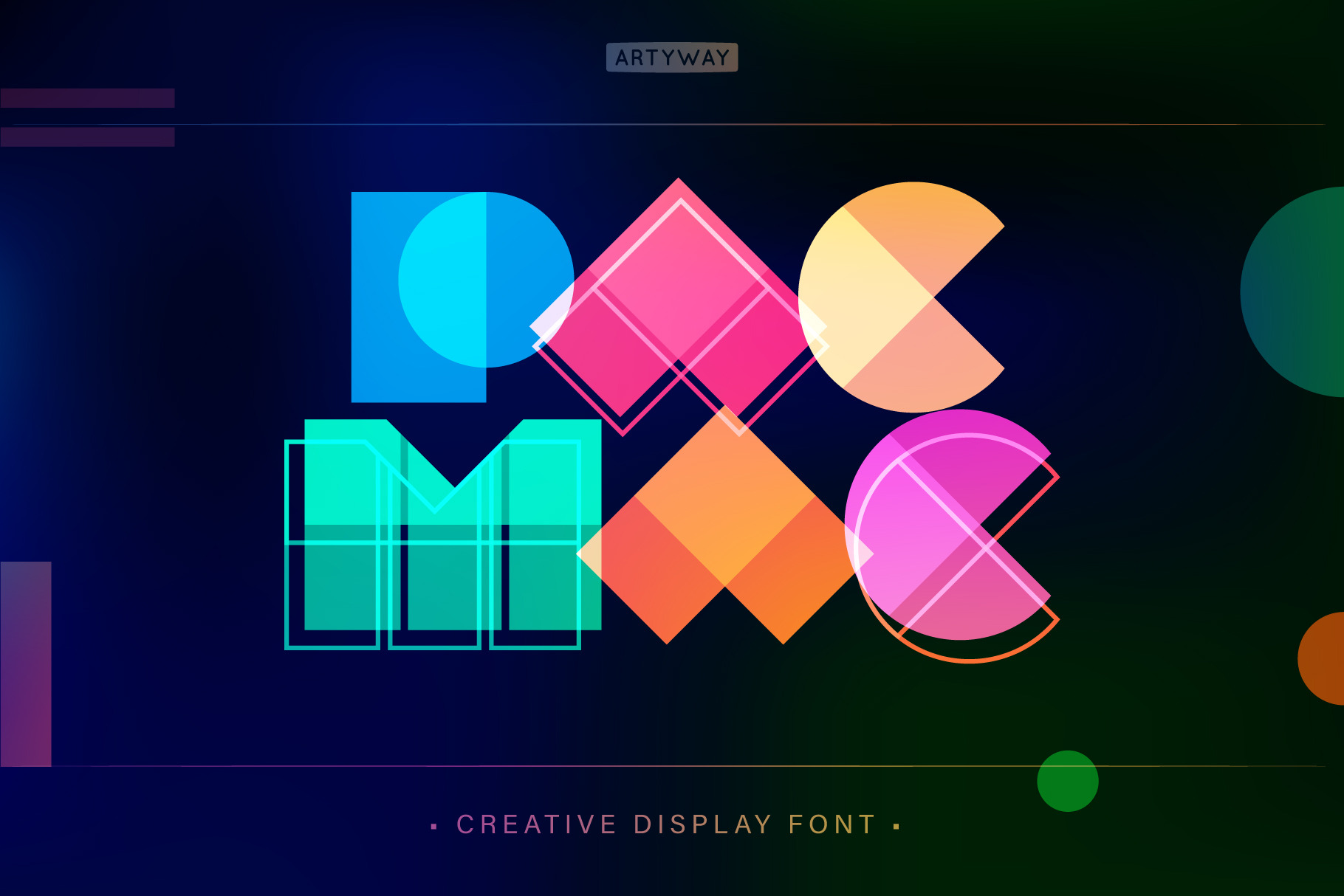
PacMac Headline Font
The Pacmac font is a color creative font made of geometric shapes, inspired by Pacman game.
Suitable for amazing projects: web, movie or music, and especially logo and poster headline.
The PacMac is an amazing geometric modular font in a variety of independent styles that can be combined to produce stunning results.
- Contour style
- Spot style
- Color style + Bitmap version
- Overlay Color (Vector)